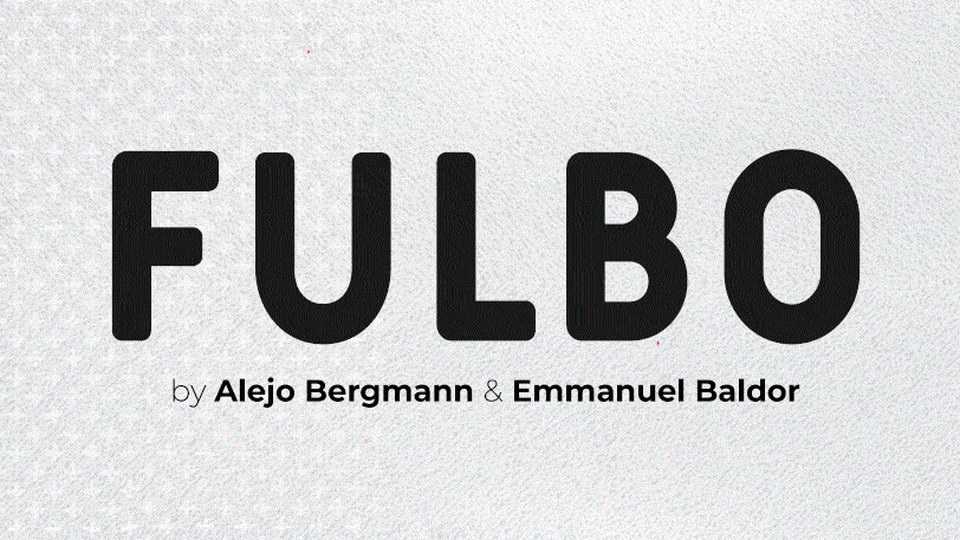
Download Fulbo font, a sporty display typeface with a lot of alternates for numbers. Fulbo font was created to maximize visibility of the numbers when the jersey is in action and keep up your designs with the five traditional styles of the most beautiful game.